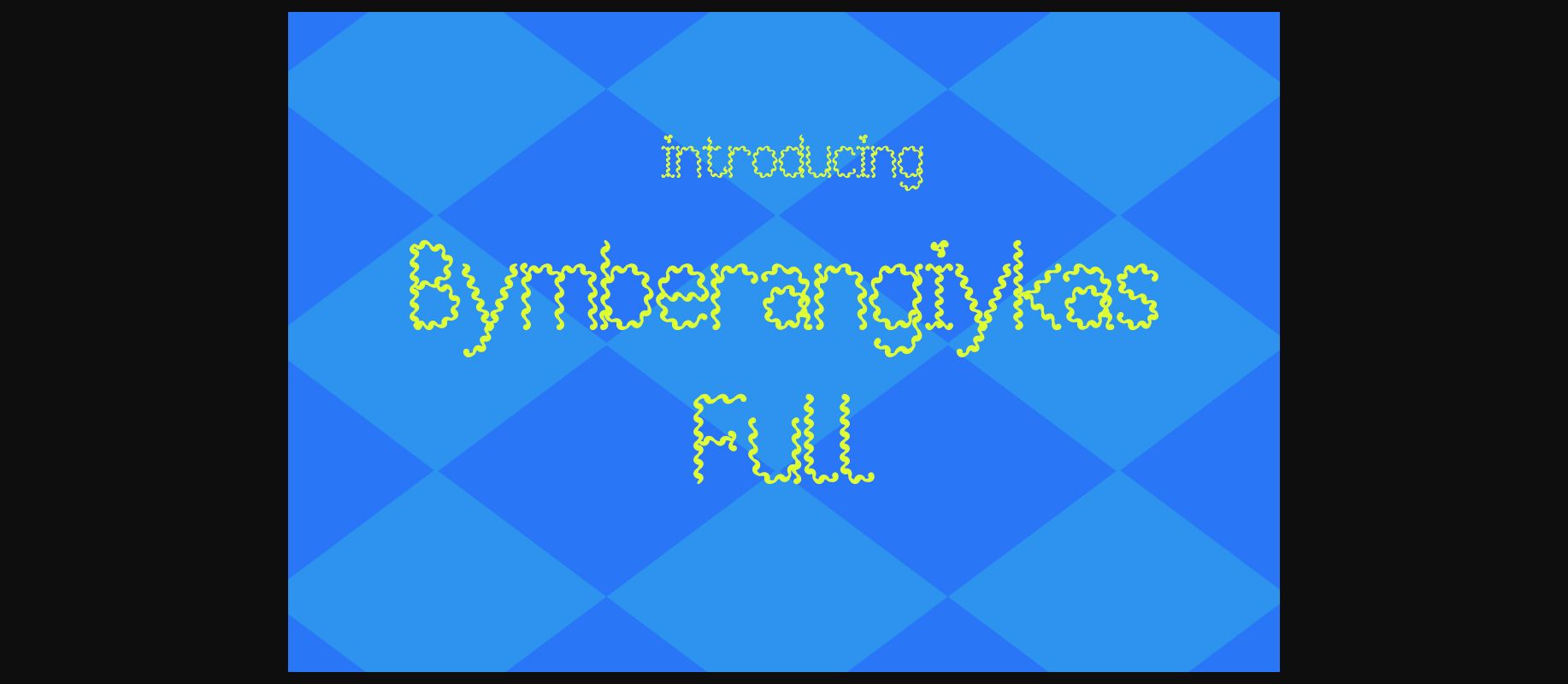
About Bymberangiykas Full Font
Bymberangiykas Full is a highly doodly, scribbled font that is suitable for a ton of decorative uses. This font looks great in relaxed themes, as well as in children’s oriented projects.